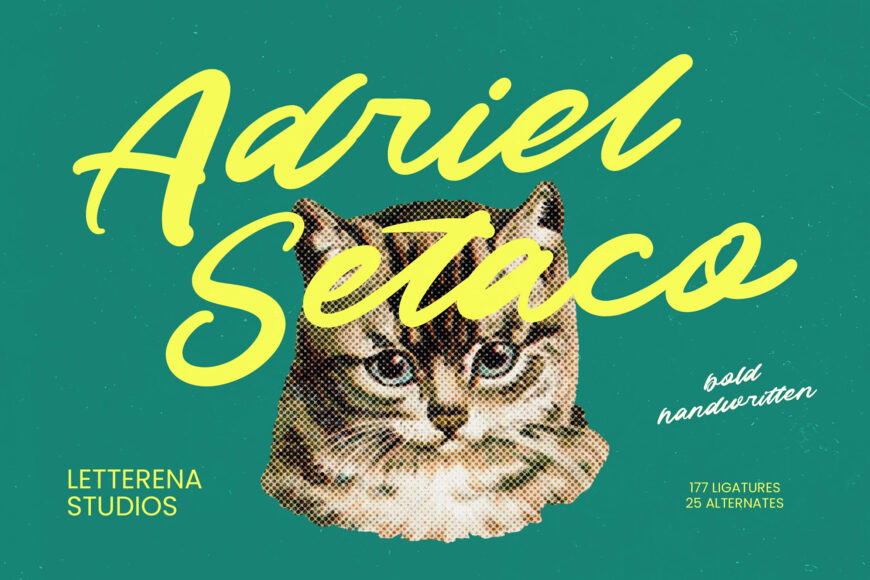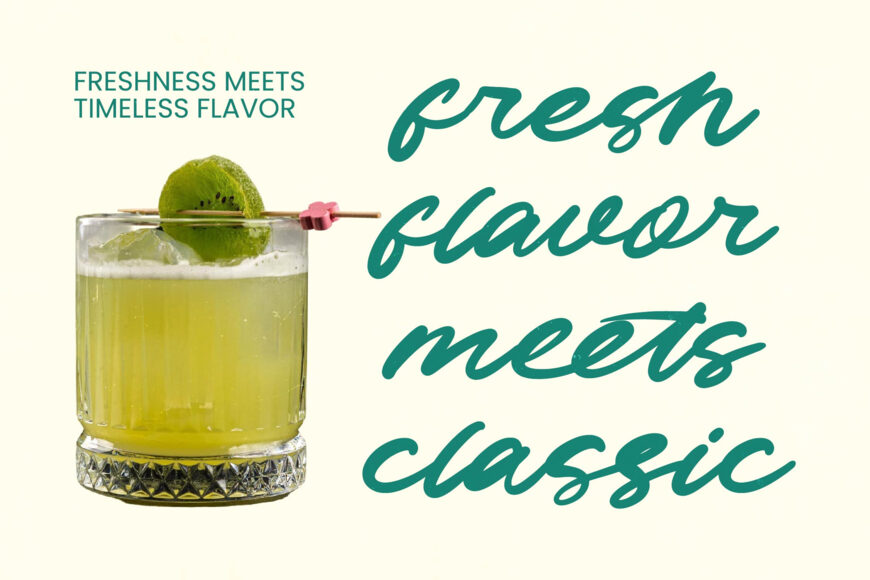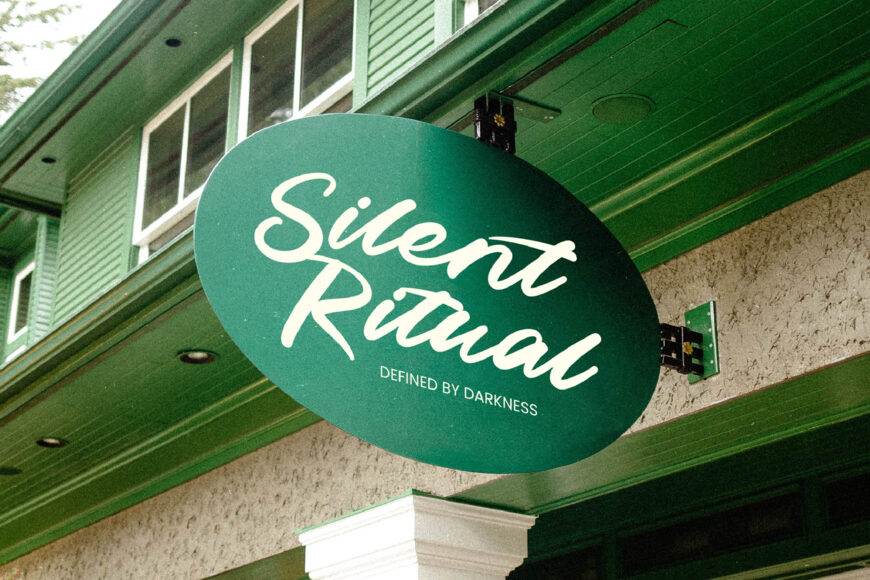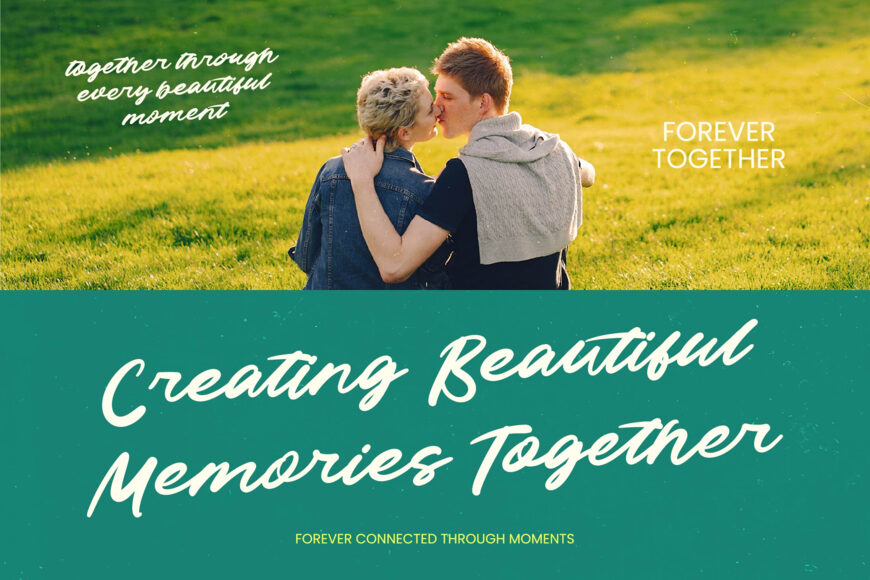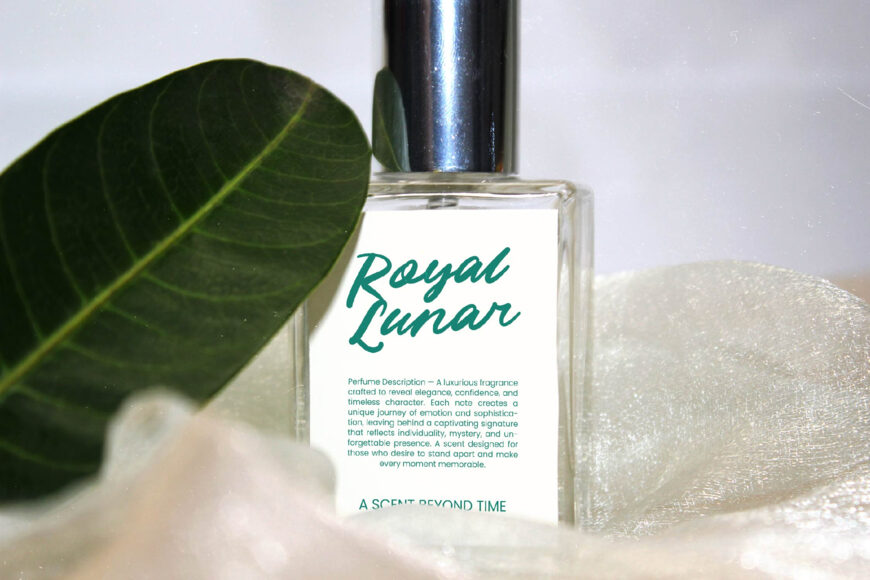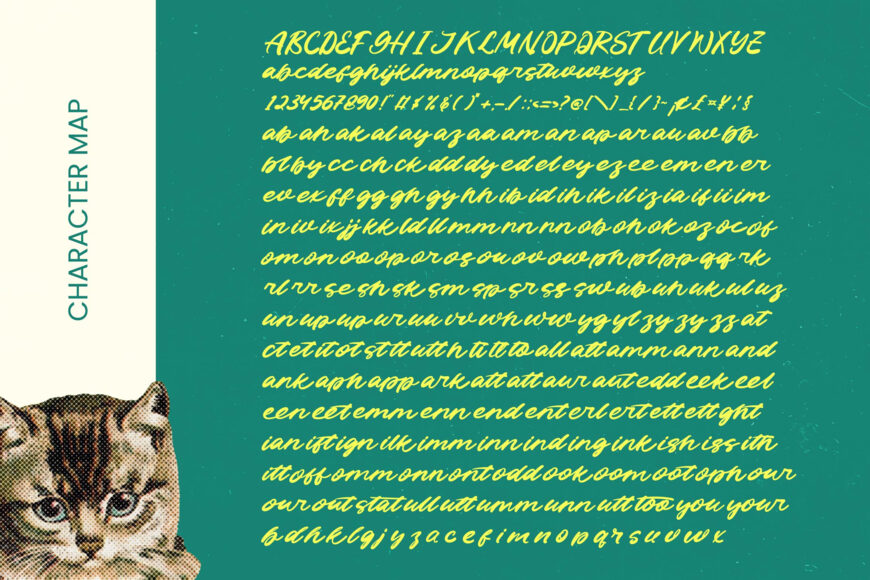
Adriel Setaco Font
Boost your creativity with a dynamic font that combines raw energy and sophisticated style. Adriel Setaco offers a unique blend of fluid brushwork and polished finish, perfect for luxury branding, premium packaging, and editorial design.
With 177 ligatures and 25 alternates, it provides a natural, custom look for global projects, supporting multiple languages and making it ideal for international applications. This font adds a layer of sophistication, helping your brand stand out in a crowded market.